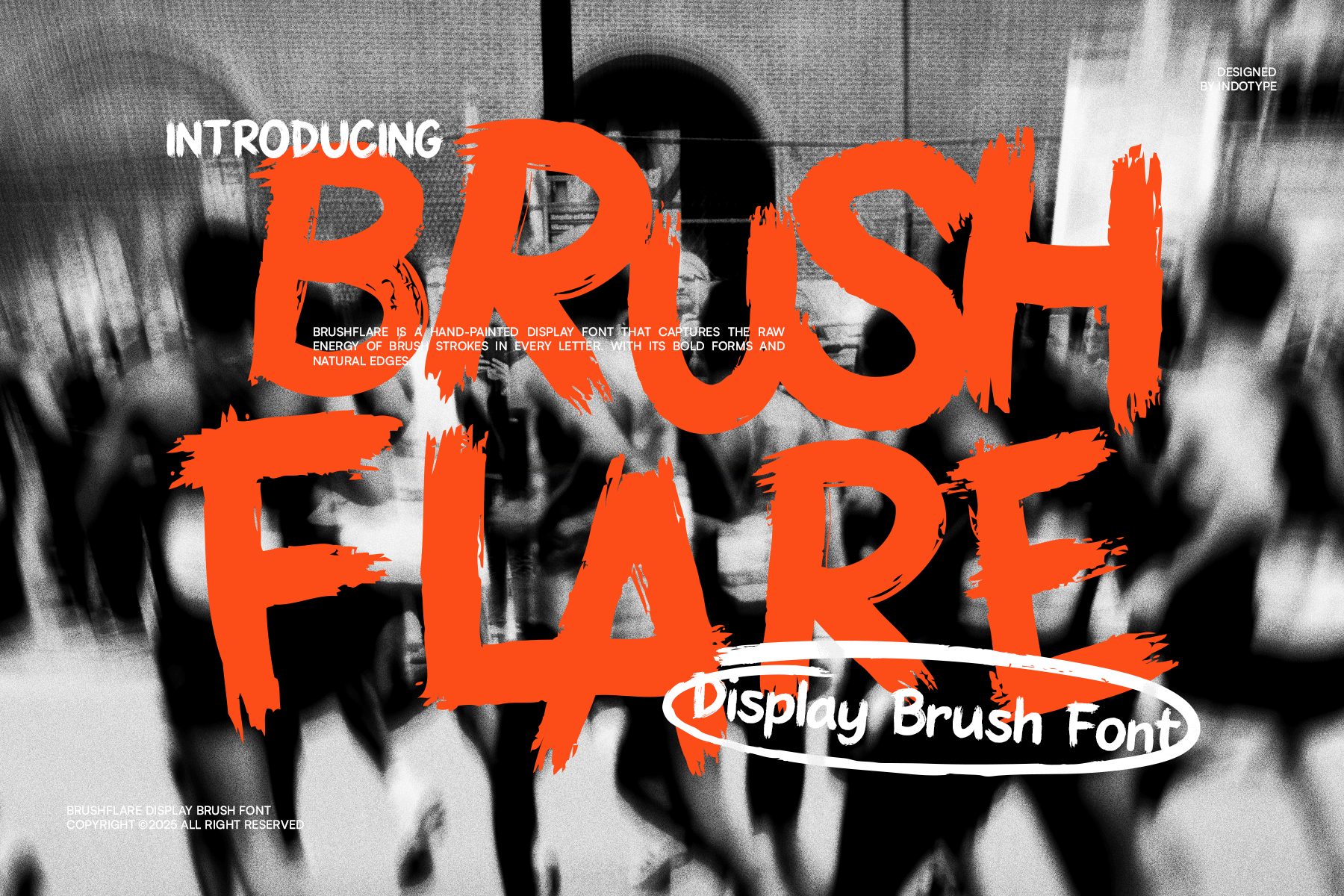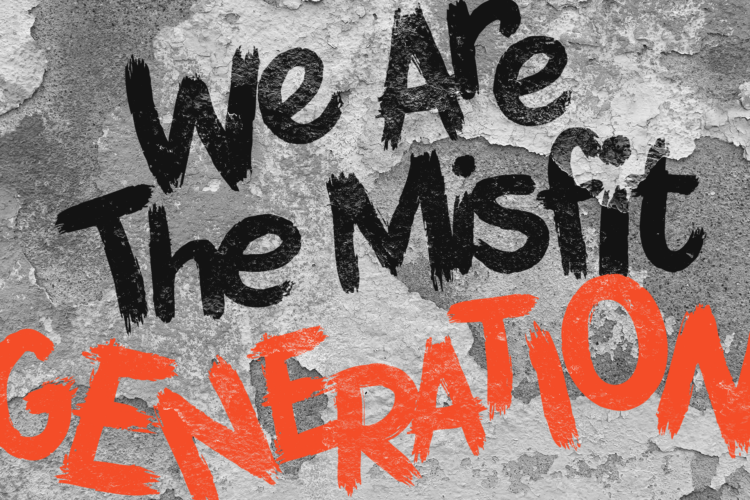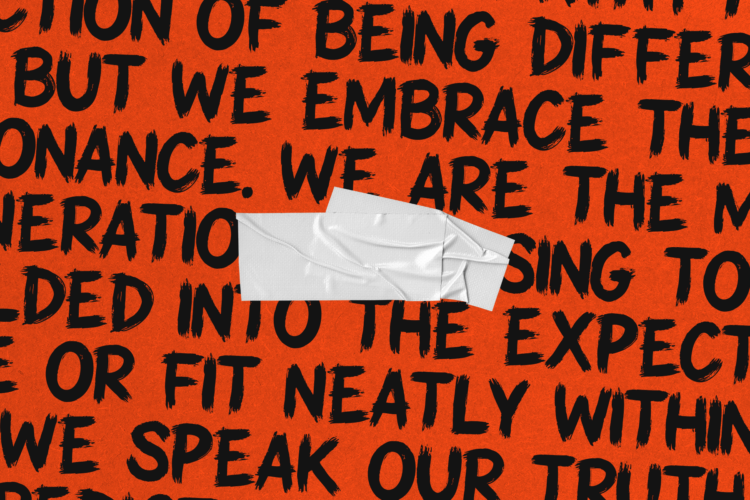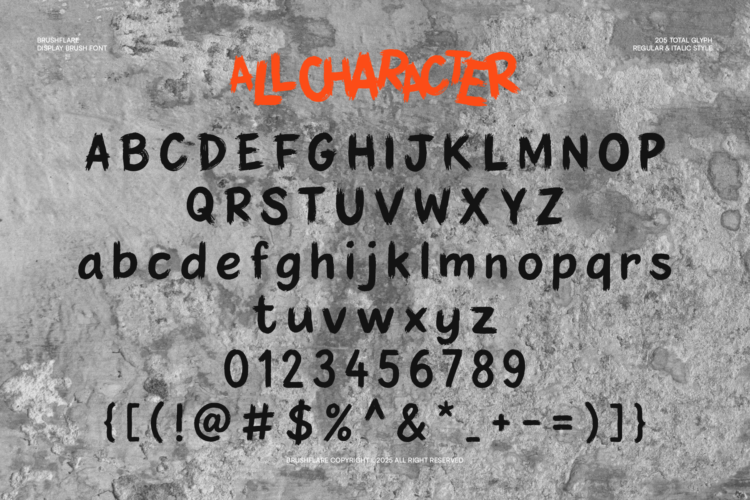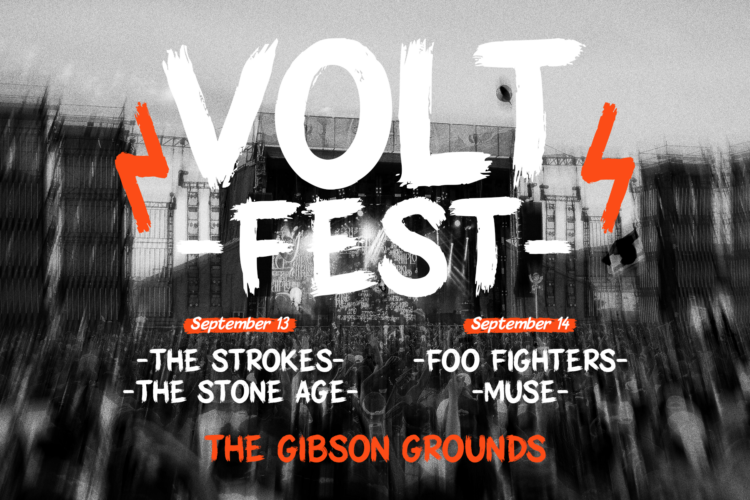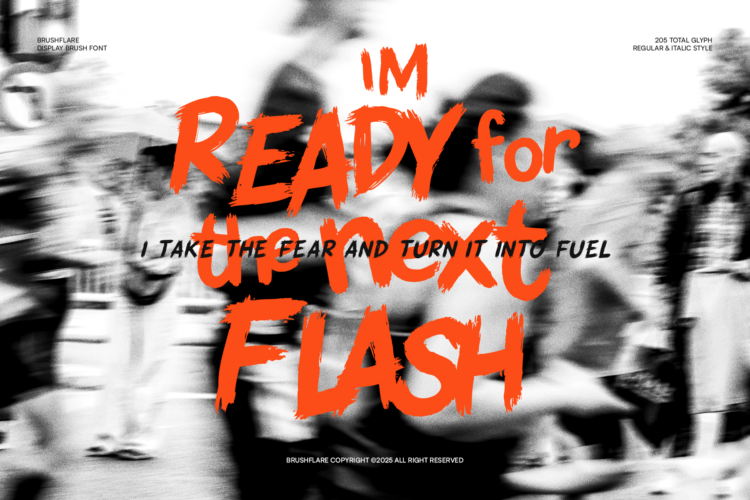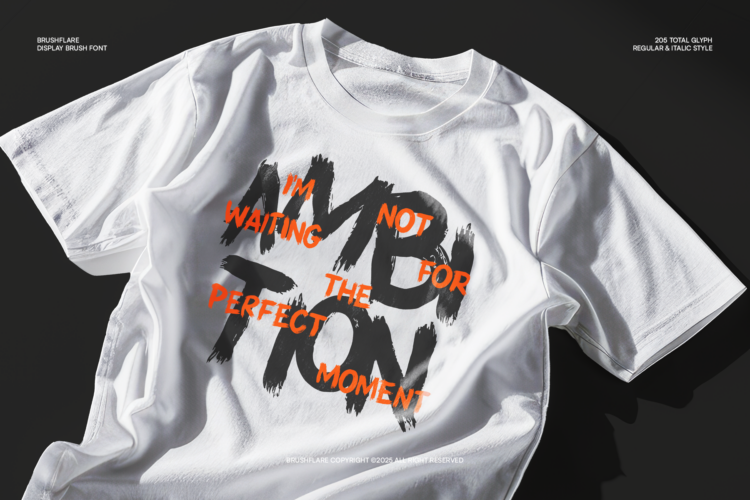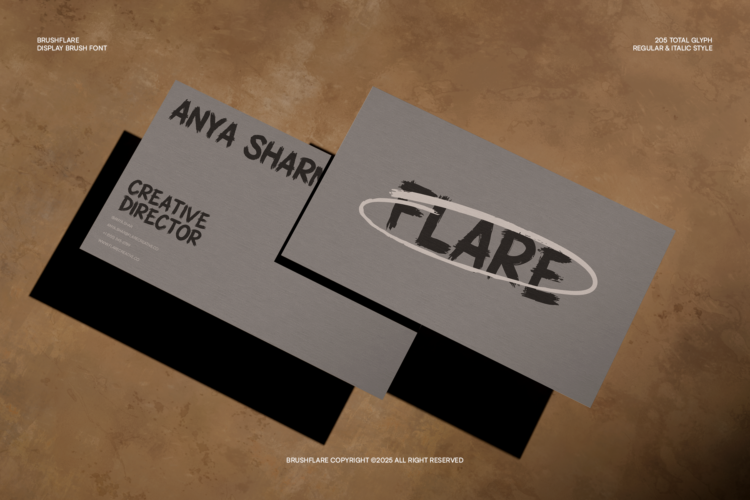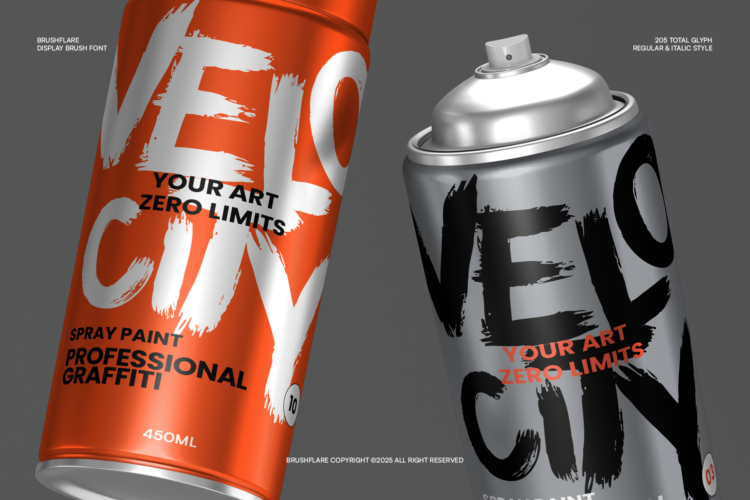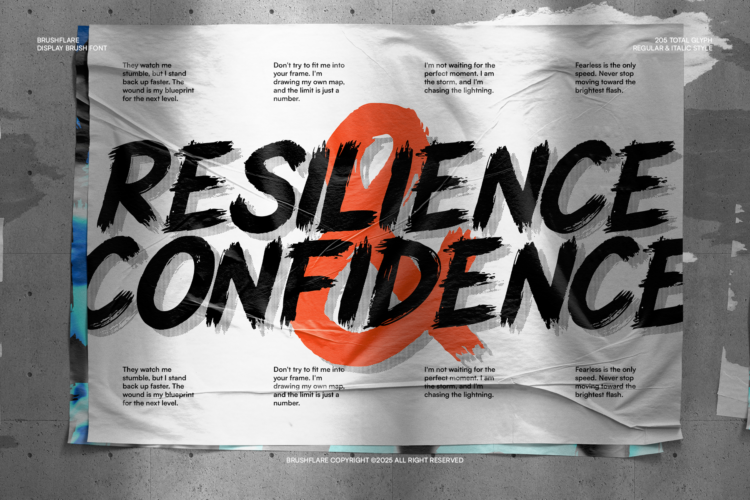
Brushflare Regular
Brushflare Italic
Brushflare is a dynamic and unrestrained display brush font that captures the raw, immediate energy of a paint-loaded brush hitting a surface. Each letterform carries the visceral texture of bold strokes, natural edges, and spontaneous movement, creating an unmistakable aura of creativity and passion. This isn’t a refined script—it’s a burst of artistic expression frozen in type, designed to convey confidence, energy, and a DIY spirit. Perfect for projects that need to make a loud, authentic statement, Brushflare excels in poster design, album art, sportswear branding, event graphics, and any visual media that thrives on high-energy appeal. Its hand-painted character adds a layer of human touch and gritty authenticity that digital perfection can’t replicate. Let your designs flare to life with the untamed spirit of Brushflare.
• Ideal for: Music Posters, Album Covers, Sportswear & Streetwear, Event Graphics, YouTube Thumbnails, Action Sports Branding.
• Classification: Display, Brush, Handwritten, Graffiti-Style.
• Attributes: Energetic, Raw, Bold, Textured, Spontaneous, Athletic, Authentic.
• Standard Character A-Z, a-z, 0-9, Punctuation & symbols
• Regular and Italic Style
• Multilingual Support accents and diacritics
Brushflare – Brush Display Font